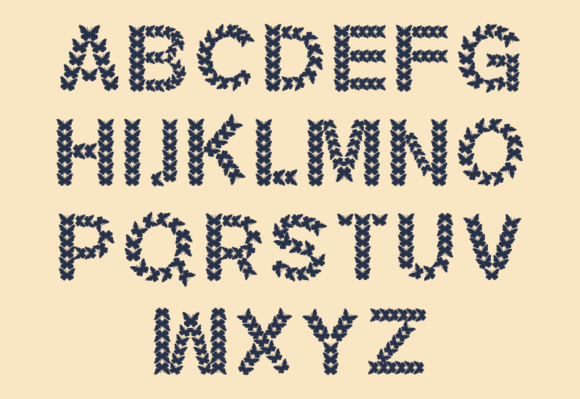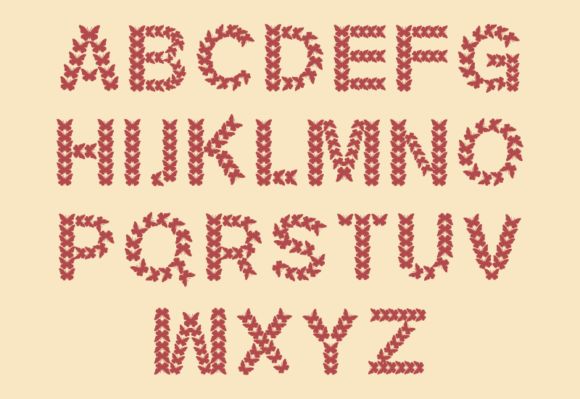
Introducing the Butterfly Font: A Gorgeous Decorative Font for Your Creative Projects
As the seasons change and spring arrives, designers and crafters are on the lookout for fresh and inspiring typography to elevate their creative projects. If you’re looking for a font that embodies the beauty and elegance of this time of year, look no further than the Butterfly Font. This stunning decorative font is sure to become a valuable asset in your font library, regardless of the topic or theme you’re working with.
What Makes the Butterfly Font So Special?
The Butterfly Font is a gorgeous decorative font that boasts a unique and eye-catching design. Its intricate details and flowing curves evoke the delicate beauty of butterflies, making it perfect for spring-inspired projects. However, its versatility extends far beyond seasonal themes, making it an excellent addition to your font collection.
Key Features of the Butterfly Font
- Unique and decorative design: The Butterfly Font features an intricate and elegant design that is sure to add a touch of sophistication to your projects.
- Highly versatile: Whether you’re working on a spring-themed project or something entirely different, this font is sure to complement your design.
- Elegant and refined: The Butterfly Font’s flowing curves and delicate details make it perfect for projects that require a touch of elegance and refinement.
How to Use the Butterfly Font in Your Projects
The Butterfly Font is an incredibly versatile font that can be used in a wide range of creative projects. Here are a few ideas to get you started:
- Spring-themed designs: Use the Butterfly Font to create stunning spring-themed designs, such as greeting cards, posters, and social media graphics.
- Wedding and event invitations: The elegant design of the Butterfly Font makes it perfect for wedding and event invitations, adding a touch of sophistication and refinement.
- Branding and packaging: Use the Butterfly Font to create eye-catching branding and packaging designs that stand out from the crowd.
- Digital art and illustrations: The Butterfly Font is a great addition to digital art and illustrations, adding a touch of elegance and whimsy to your creations.
Tips for Getting the Most Out of the Butterfly Font
To get the most out of the Butterfly Font, here are a few tips to keep in mind:
- Experiment with different colors and textures: The Butterfly Font looks stunning in a range of colors and textures, so don’t be afraid to experiment and find the perfect combination for your project.
- Use it sparingly: While the Butterfly Font is a beautiful font, it can be overwhelming if used too much. Use it sparingly to add a touch of elegance and sophistication to your design.
- Pair it with other fonts: The Butterfly Font pairs well with a range of other fonts, so don’t be afraid to experiment with different combinations to find the perfect look for your project.
The Butterfly Font is a gorgeous decorative font that is sure to become a valuable asset in your font library. Its unique and eye-catching design makes it perfect for a wide range of creative projects, from spring-themed designs to wedding and event invitations. With its elegant and refined design, the Butterfly Font is sure to add a touch of sophistication and whimsy to your creations. So why not give it a try and see how it can elevate your designs?